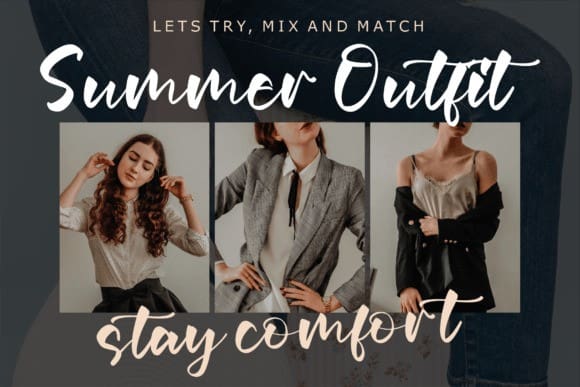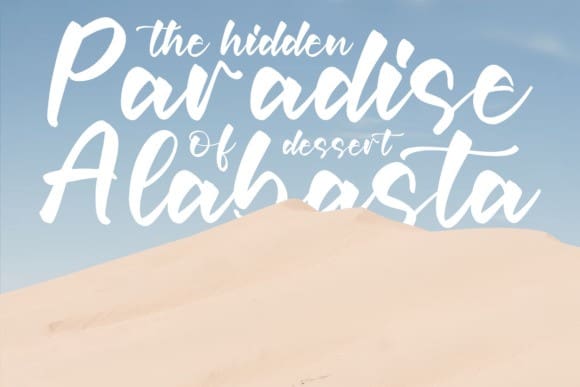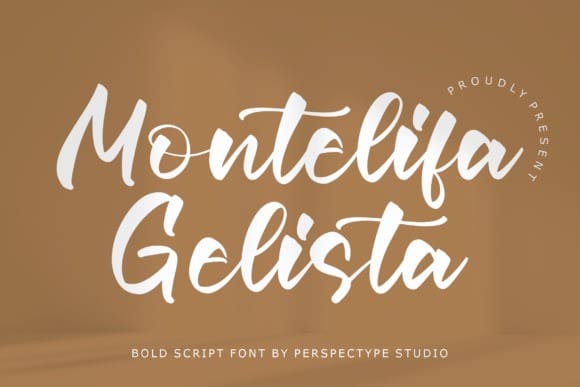
Montelifa Gelista Font
Montelifa Gelista Font – Bold Script Font suitable for any projects such as logos, branding projects, homeware designs, product packaging, mugs, quotes, posters, shopping bags, t-shirts, book covers, name cards, invitation cards, greeting cards, labels, photography, watermark, special events, and all your other lovely projects that need a beautiful script taste.